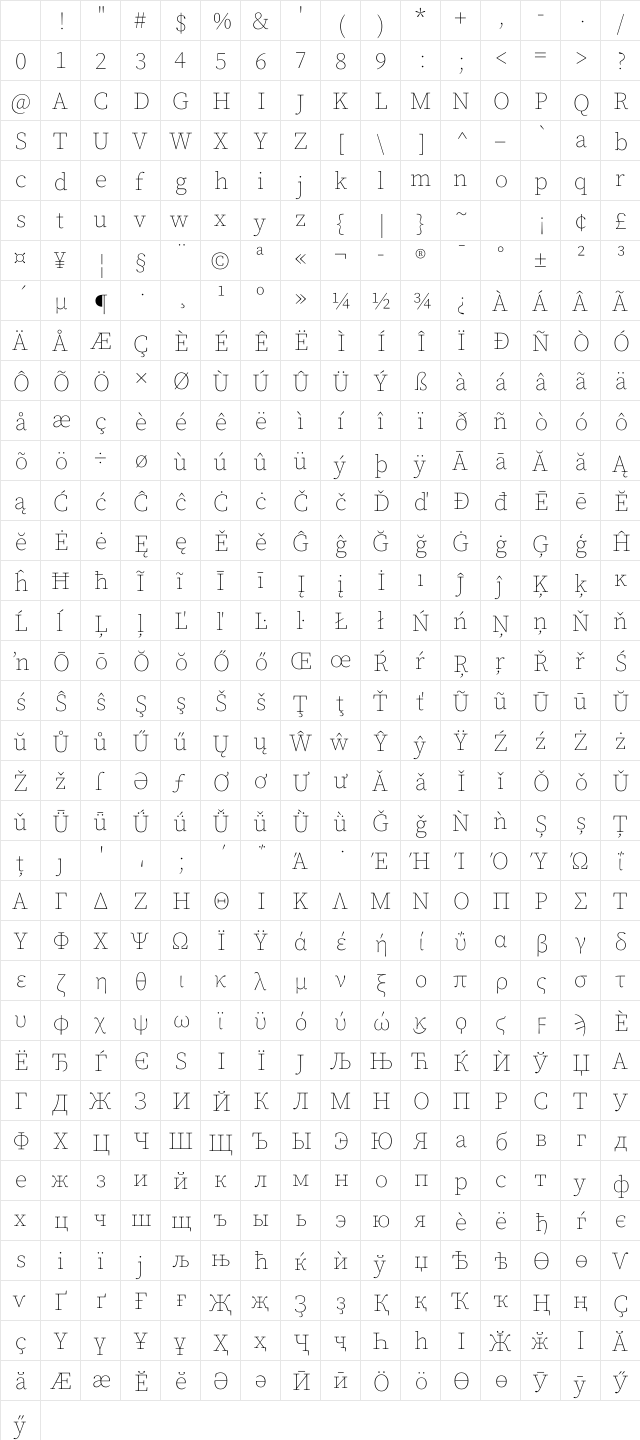
Source Serif Pro ExtraLight carries the refined structure of traditional serif typography, with bracketed terminals and considered proportions that communicate credibility and craft. Its slender proportions lend an understated elegance to any composition.